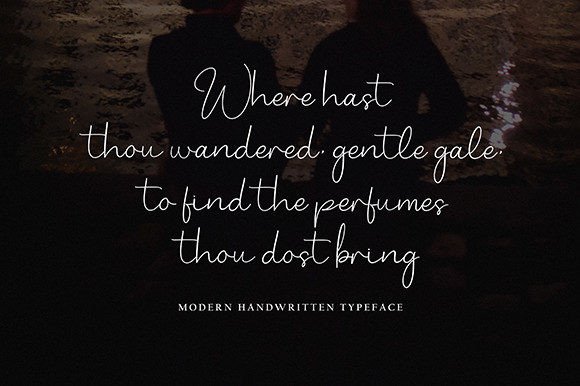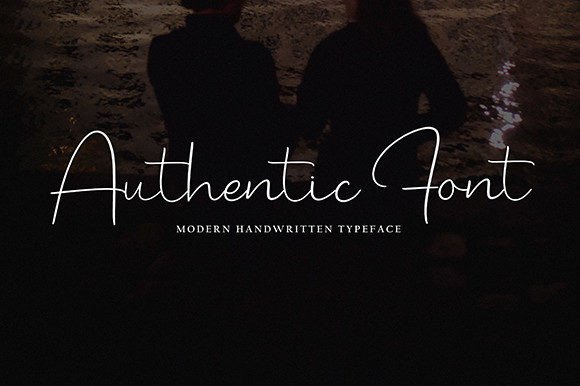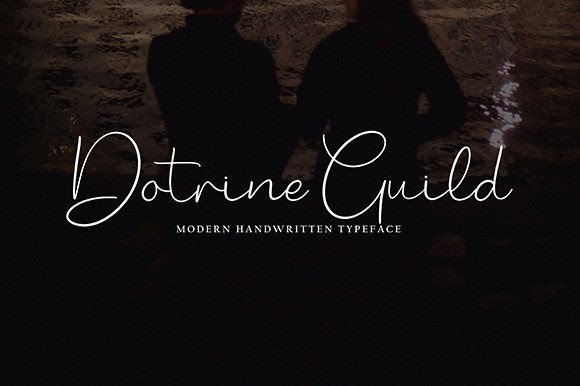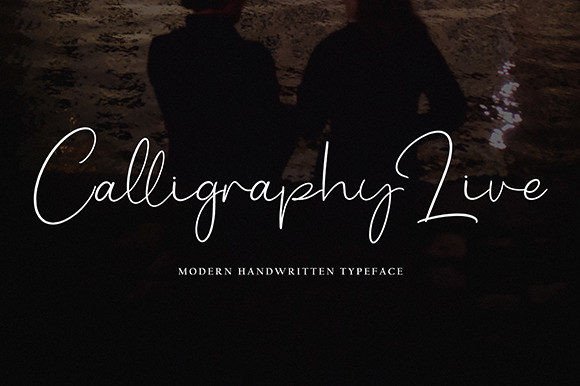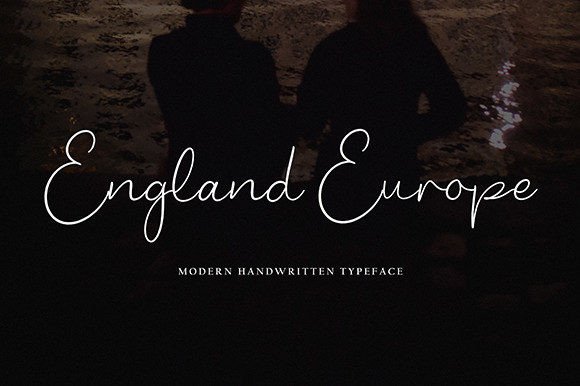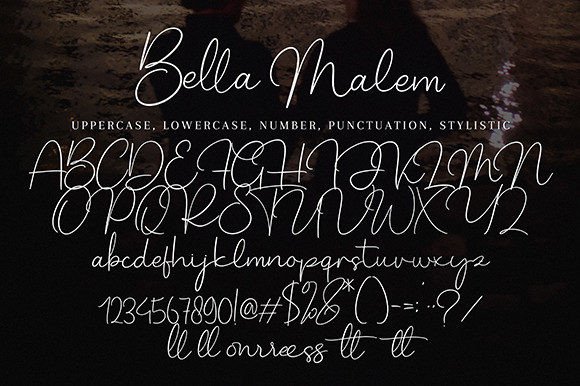
Bella Malem Font: Elevate Your Designs with Elegance and Sophistication
In the world of typography, fonts play a crucial role in conveying the tone and personality of a design. For those seeking a modern, elegant, and feminine touch, the Bella Malem Font is an exceptional choice. This stunning script font is perfect for designers and crafters looking to add a touch of sophistication and style to their projects.
What is Bella Malem Font?
Bella Malem is a modern script font that boasts gentle curves and flowing lines, exuding a sense of refinement and luxury. Its elegant cursive strokes are designed to give a personalized touch to any design project, making it stand out from the crowd. Whether you’re working on branding, wedding invitations, or other special occasions, this font is both timeless and contemporary.
Key Features of Bella Malem Font
- Modern and Elegant: Bella Malem Font features a sleek and sophisticated design, perfect for those seeking a contemporary look.
- Feminine Touch: The font’s gentle curves and flowing lines give it a distinctly feminine touch, making it ideal for designs that require a touch of elegance.
- Timeless and Contemporary: Bella Malem Font strikes the perfect balance between classic and modern design elements, ensuring it remains relevant for years to come.
- Personalized Touch: The font’s elegant cursive strokes add a personal touch to any design project, making it perfect for special occasions and bespoke designs.
Uses of Bella Malem Font
Bella Malem Font is incredibly versatile and can be used for a wide range of design projects, including:
- Branding: Create a lasting impression with your brand’s identity by using Bella Malem Font in your logos, business cards, and marketing materials.
- Wedding Invitations: Add a touch of romance and elegance to your wedding invitations, save-the-date cards, and other wedding stationery.
- Special Occasions: Use Bella Malem Font to create beautiful and memorable designs for birthdays, anniversaries, and other special events.
- Digital Designs: The font is also perfect for digital designs, including social media graphics, blog headers, and website designs.
Why Choose Bella Malem Font?
With so many fonts available, why choose Bella Malem Font? Here are a few reasons why designers and crafters love this font:
- Unique and Distinctive: Bella Malem Font is a unique and distinctive font that will set your designs apart from the rest.
- Elegant and Sophisticated: The font’s elegant cursive strokes and gentle curves give it a sophisticated and refined look.
- Easy to Read: Despite its elegant design, Bella Malem Font is easy to read, making it perfect for body text and headlines.
- Highly Versatile: The font can be used for a wide range of design projects, from branding and advertising to wedding invitations and digital designs.
Tips for Using Bella Malem Font
To get the most out of Bella Malem Font, here are a few tips to keep in mind:
- Use it Sparingly: Bella Malem Font is a statement font, so use it sparingly to create a lasting impression.
- Pair it with Other Fonts: Experiment with pairing Bella Malem Font with other fonts to create a unique and visually appealing design.
- Adjust the Size and Style: Don’t be afraid to adjust the size and style of the font to suit your design needs.
In conclusion, Bella Malem Font is a stunning script font that offers a perfect blend of elegance, sophistication, and femininity. Its versatility, unique design, and ease of use make it an excellent choice for designers and crafters looking to elevate their designs. Whether you’re working on branding, wedding invitations, or other special occasions, Bella Malem Font is sure to make your designs stand out from the crowd.